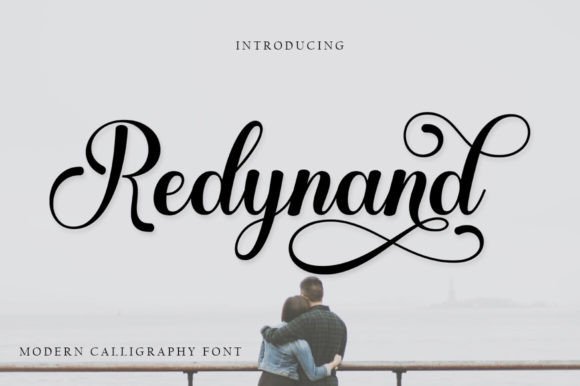
Introducing Redynand: A Script Font Embracing Love's Timeless Essence
In a world where love knows no bounds, where hearts intertwine and emotions run deep, there exists a font that captures the very essence of this profound sentiment – Redynand. A creation of Strong.co, Redynand is a script font that dances along the baseline with its soft and sweet Bold strokes, exuding a casual yet elegant charm.
With Redynand, your words will take on a life of their own, flowing effortlessly like a gentle caress. Its characters seem to dance in perfect harmony, reflecting the ebb and flow of love's captivating rhythm. Whether you're crafting a love letter, designing a wedding invitation, or creating a heartfelt message, Redynand weaves a tapestry of emotions that resonates with the soul.
Redynand's versatility extends beyond love-inspired projects. Its casual elegance lends itself beautifully to logos, letterheads, and signage, adding a touch of sophistication and personality to your brand identity. It shines in headings, t-shirts, and posters, commanding attention with its captivating presence.
For those seeking a font that speaks to the heart, Redynand is an exceptional choice. Its ability to evoke emotions and create a lasting impression makes it a perfect fit for personal and professional projects alike.
So, let Redynand be your artistic muse, guiding your creative vision to new heights. With its innate ability to capture the essence of love and its versatility across various design applications, Redynand is the font that will make your words dance with passion and leave an enduring mark on the hearts of your audience.